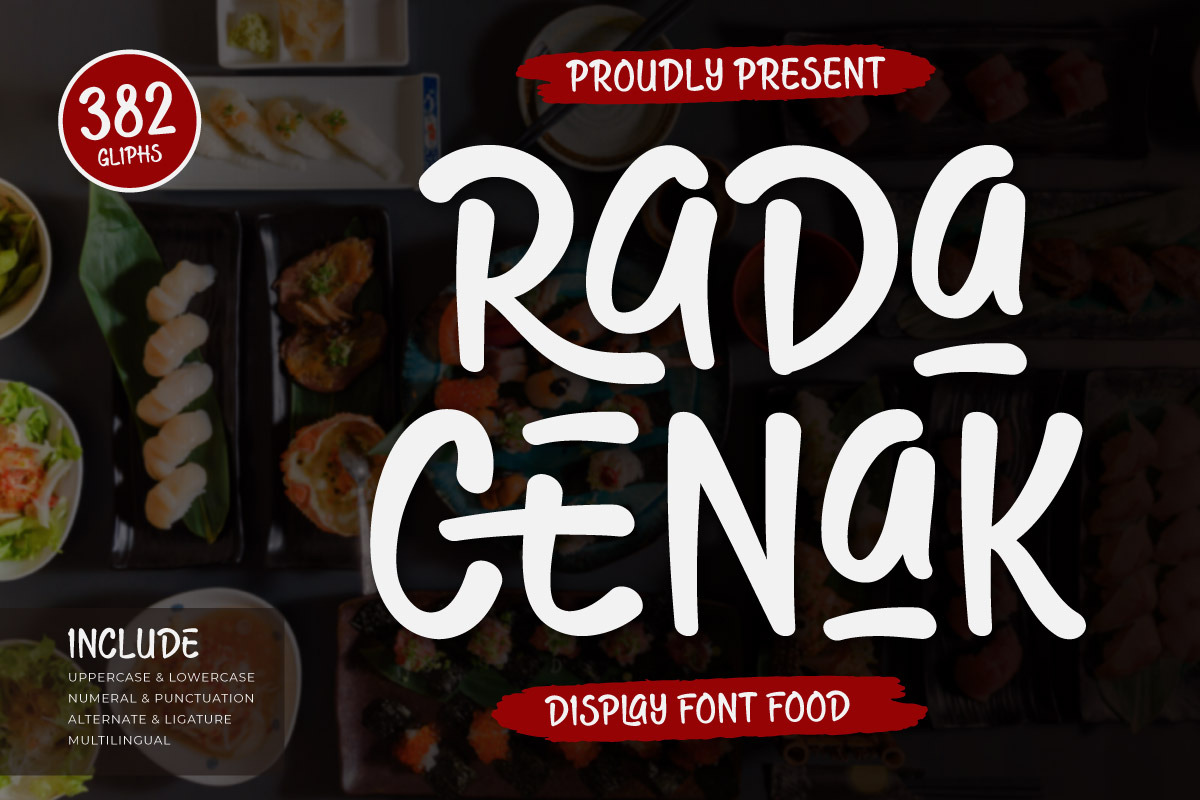
Rada Cenak - Food Display Font
Rada Cenak is a deliciously bold food display font designed to bring flavor and fun to your creative projects. With chunky curves, playful energy, and a mouthwatering personality, this font is perfect for everything related to food—whether it’s restaurant branding, food packaging, café menus, or culinary social media content.
The letters of Rada Cenak are crafted to feel inviting and flavorful, making any text pop like a tasty treat. Its cheerful style instantly adds warmth and approachability, helping you capture attention and communicate your message with charm. If you're working on a project that needs to feel tasty, vibrant, and irresistible—Rada Cenak is your secret ingredient.